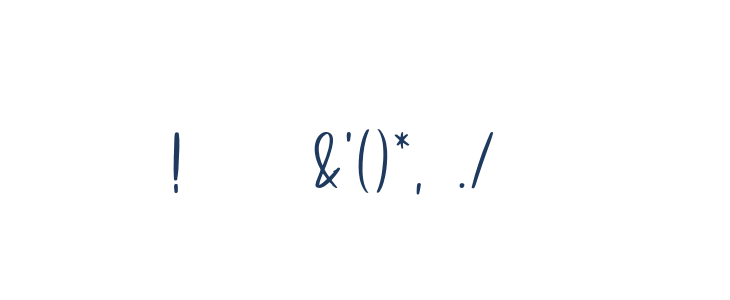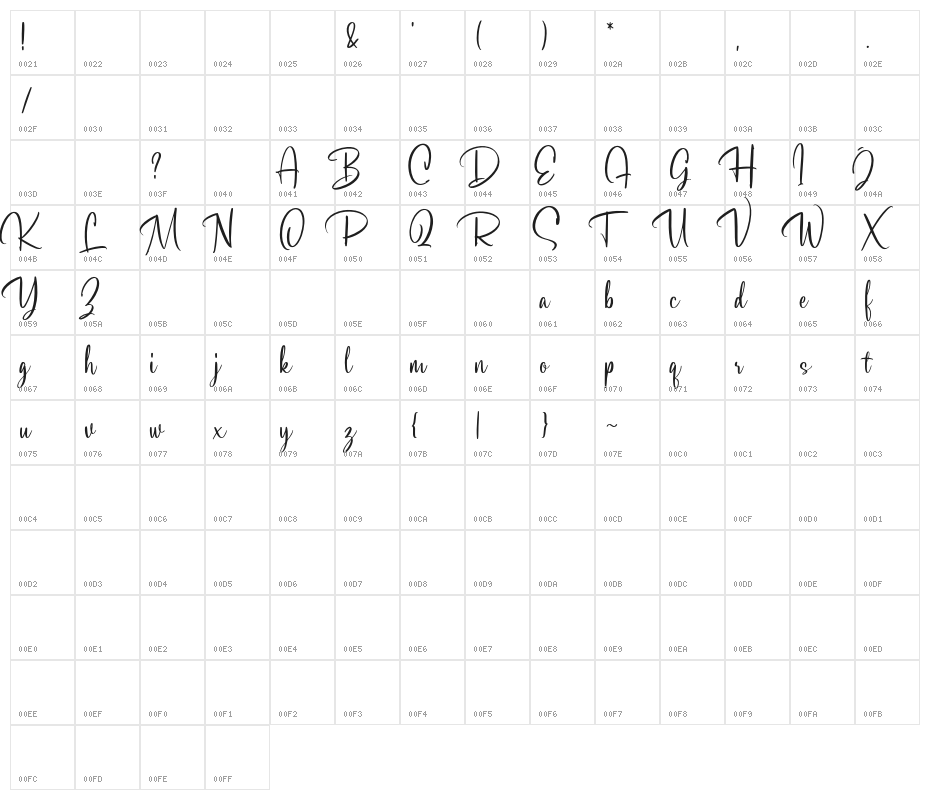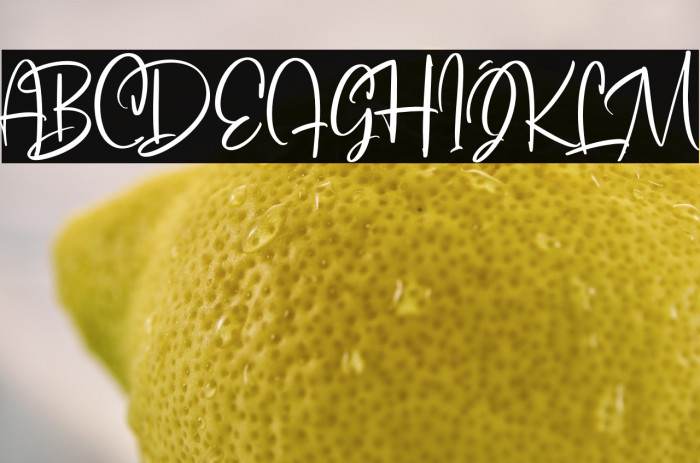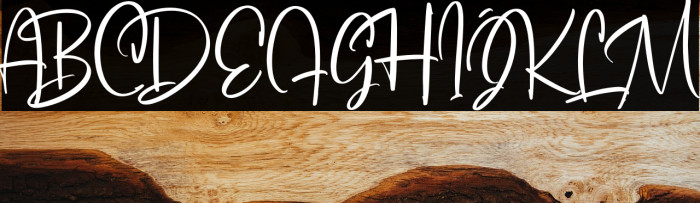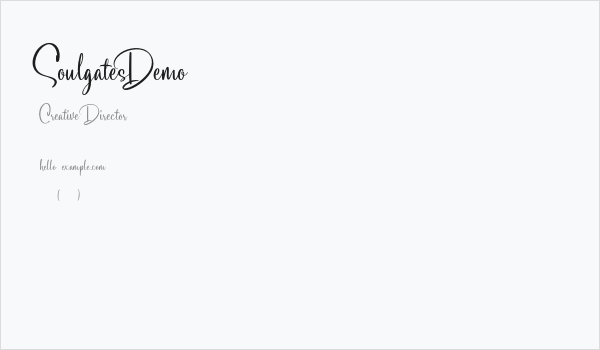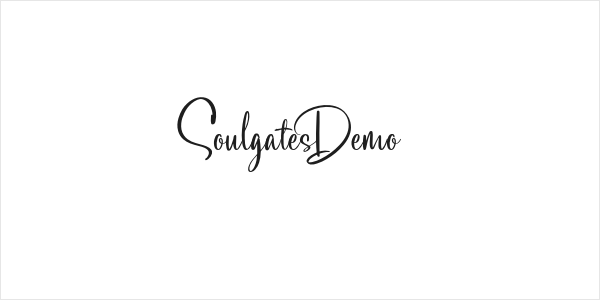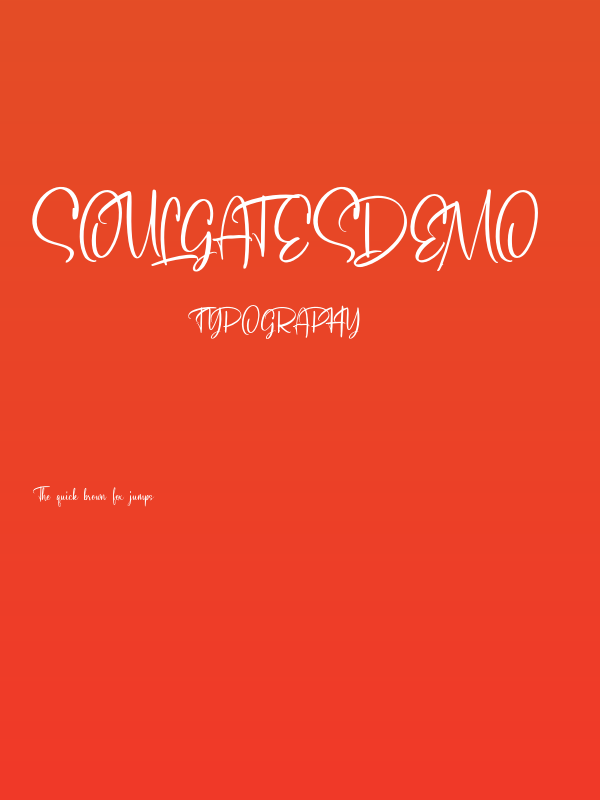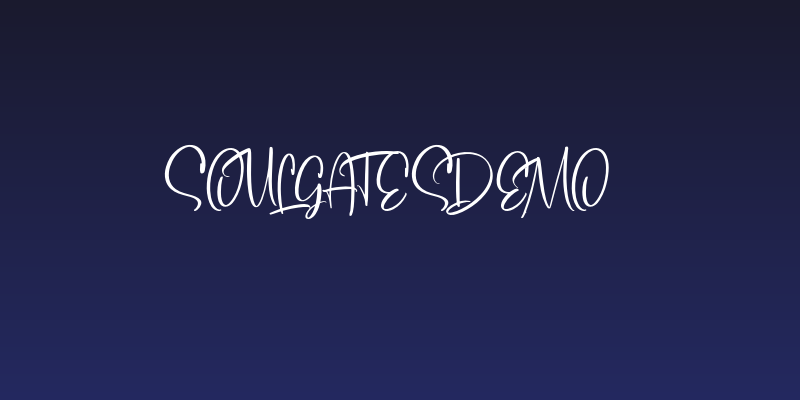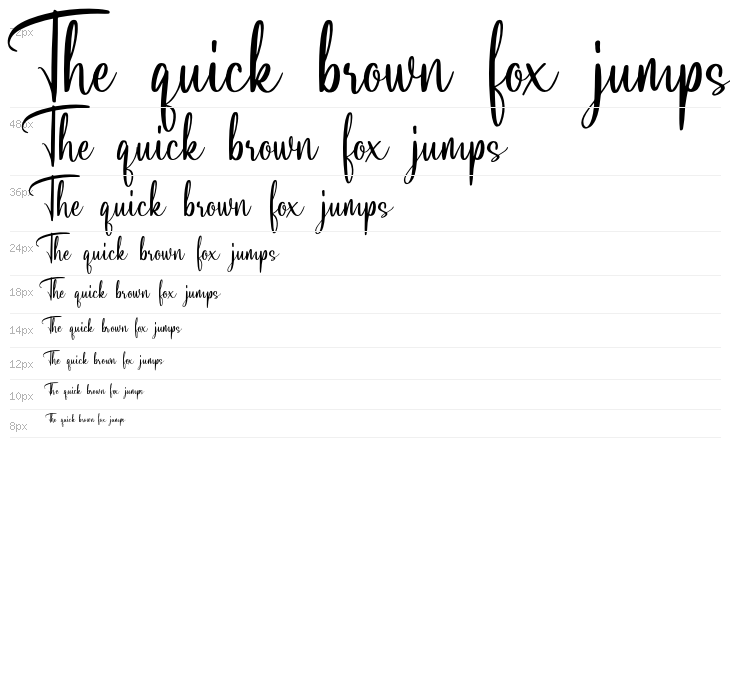
SoulgatesDemo Font
SoulgatesDemo Description
This font features a dynamic and expressive script style, characterized by its fluid, cursive strokes that convey a sense of elegance and movement. The uppercase letters are bold and sweeping, with distinctive loops and flourishes that add a decorative touch. The lowercase letters maintain a consistent flow, enhancing readability while retaining a stylish flair. The numerals and special characters complement the overall aesthetic, offering a cohesive look across all elements. This font is ideal for projects that require a personal, handwritten feel, such as invitations, branding, and creative designs.
| Use Case | Logos, Invitations, Creative designs |
| Proposed Projects | Ideal for wedding invitations, branding, greeting cards, and creative design projects. |